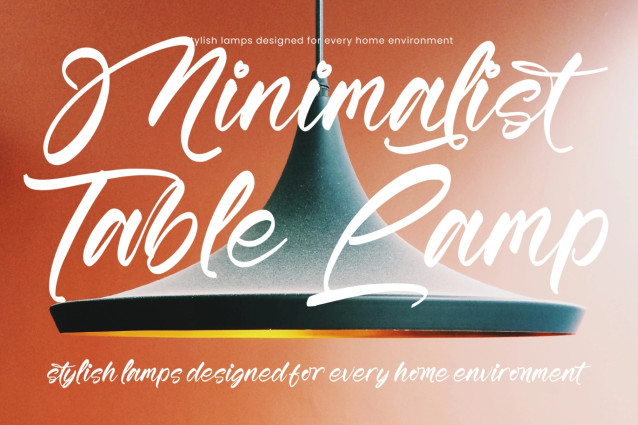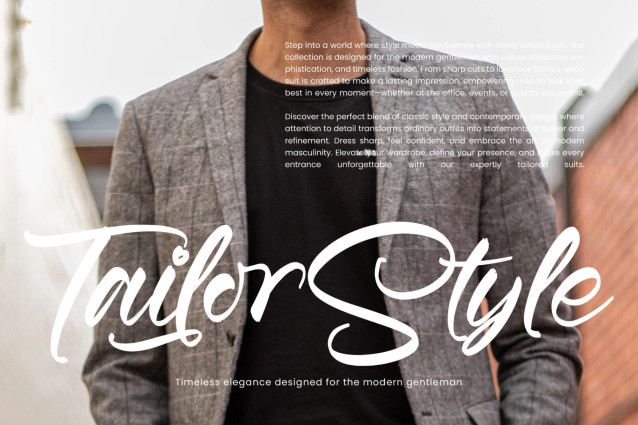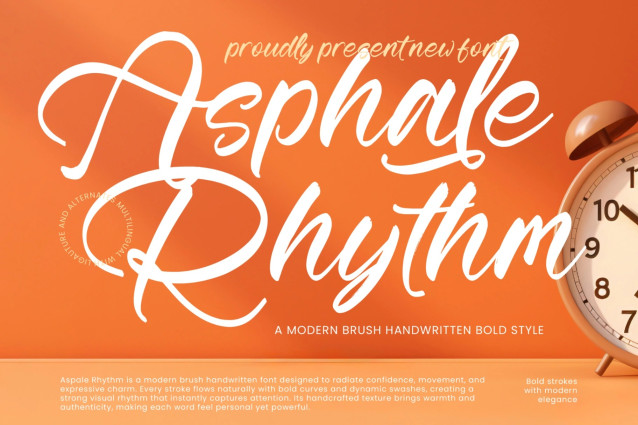
Asphale Rhythm Font
Asphale Rhythm Font is a modern brush handwritten typeface created to express confidence, movement, and bold artistic character. Inspired by contemporary brush lettering, urban creativity, and expressive handwriting, this font combines energetic strokes with elegant flowing curves to produce typography that feels powerful, authentic, and visually captivating.
Designed with carefully balanced letterforms and dynamic swashes, Asphale Rhythm delivers a handcrafted appearance while maintaining excellent readability across a wide range of applications. Its smooth brush texture and natural rhythm create a sense of motion and personality, making every word feel vibrant and memorable. Enhanced with multilingual support, ligatures, and stylistic alternates, it offers designers greater flexibility for creating unique and customized typography compositions.
Whether you’re developing a modern brand identity, creating eye-catching social media content, designing product packaging, or producing striking advertising materials, Asphale Rhythm provides the perfect combination of expressive brush energy and professional visual appeal.